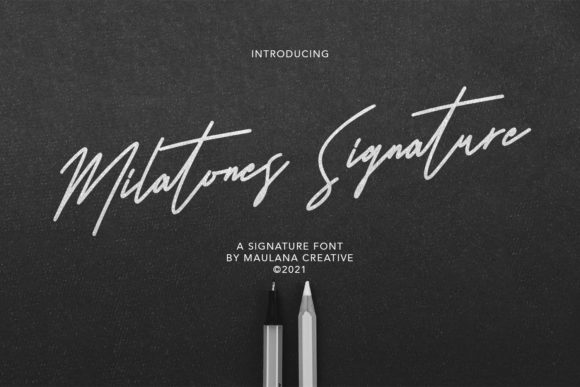
Milatones Signature Font
Milatones Signature is an elegant and dainty handwritten font that features sweet and delicate swashes. This original look will appeal to a wide range of crafty ideas, from letterheads and titles, to stationery.